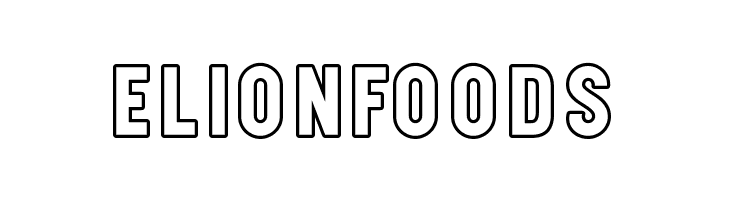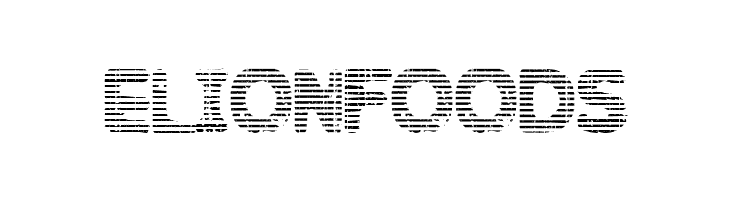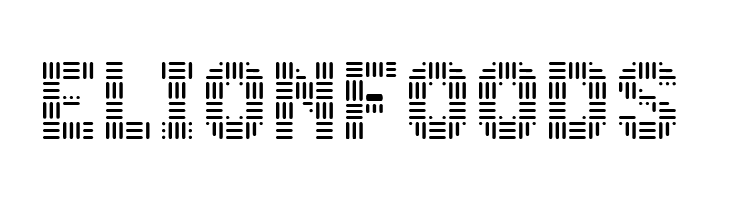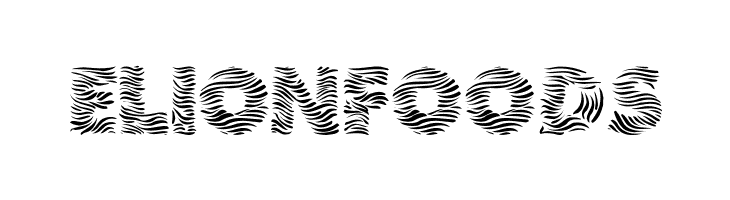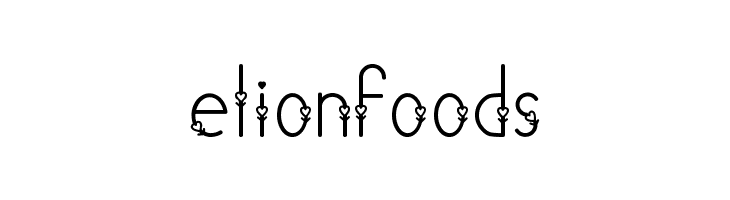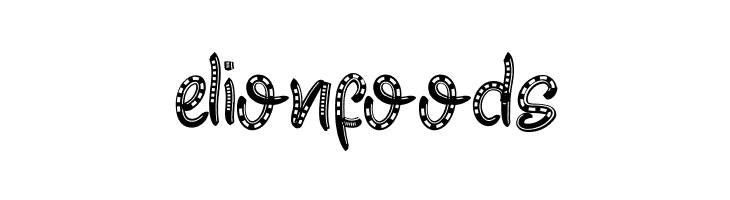
A bold, decorative font with a 3D shadow effect, perfect for eye-catching designs.
A bold, outlined font with a modern and playful aesthetic.
A bold, outlined, geometric font with a modern style.
A bold, decorative font with multiple outlines and a modern, playful style.
A bold, outlined font with a modern and playful aesthetic.
( Fonts by Dicky Syafaat )
A bold, zebra-patterned font with a wild and dynamic style.
( Fonts by Nur Aisyah Amalia )
A whimsical decorative font with heart-shaped accents on each character.
( Fonts by K_IN Studio )
A playful, decorative font with bold, hand-drawn letters featuring dotted embellishments.